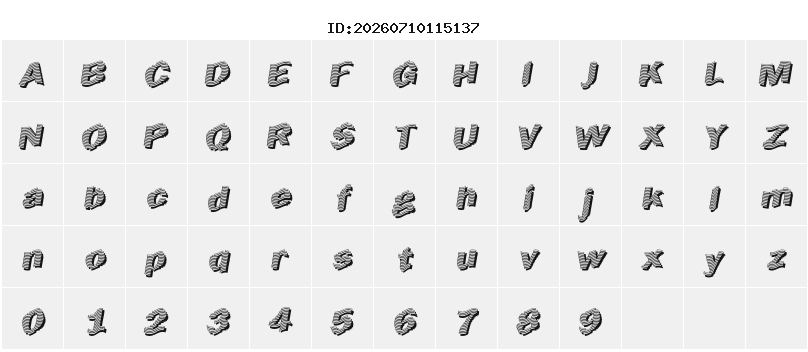
• Font Name: Early Tickertape
• Font ID: Early Tickertape
• Full Font Name: Early Tickertape
About Early Tickertape.ttf
Early Tickertape.ttf is a modern, elegant sans-serif font designed for ultimate readability and visual harmony. Perfect for branding, headlines, web design, and print materials.